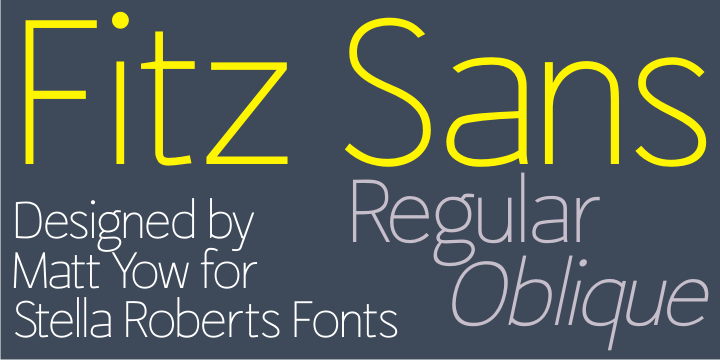
Fitz Sans SRF was contributed to the Stella Roberts Fonts project by graphic designer Matt Yow after receiving word of the project from Ray Larabie of Typodermic Fonts.
A light, attractive text face, Fitz Sans SRF also lends itself well to headlines and titles. The font is available in both regular and oblique versions.